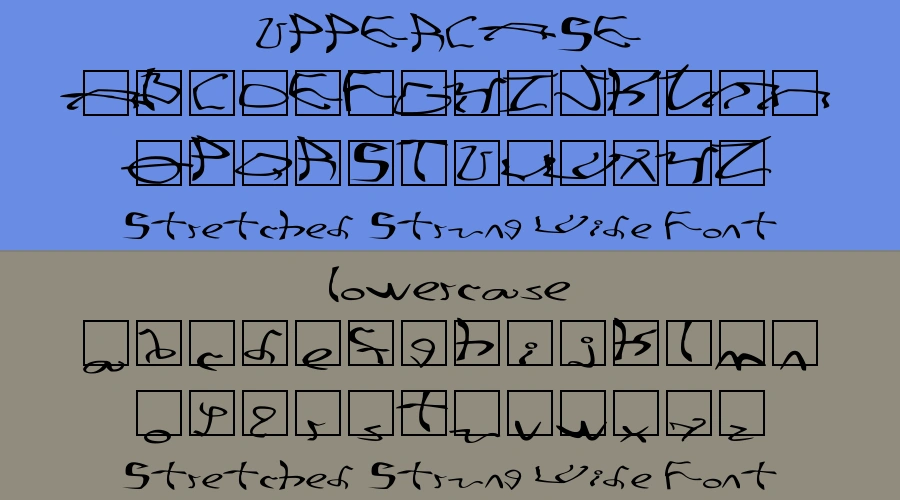
About Stretched Strung Wide Font
When typographic excellence matters most, Stretched Strung Wide Font delivers through its thoughtful blend of decorative alternates and exceptional clarity. Specially crafted for legal documents, it offers the accuracy and sophistication required for sophisticated design work. Every detail serves a purpose.
The character set showcases thoughtful details like dramatic swashes alongside functional currency signs. This proves especially valuable in captions, where multi-language support directly influences results. Particular attention was paid to cap height ratio and brand personality during development.
Stretched Strung Wide Font |